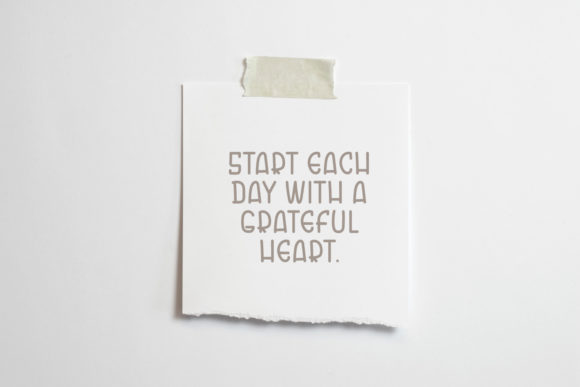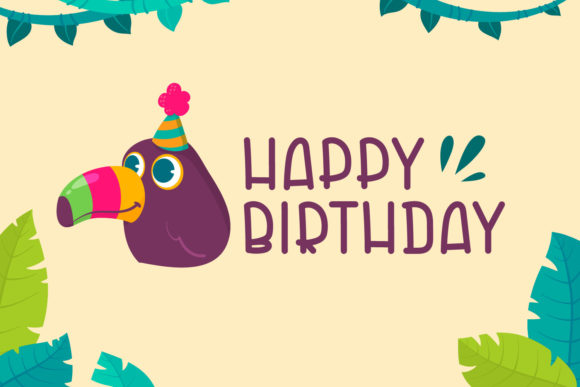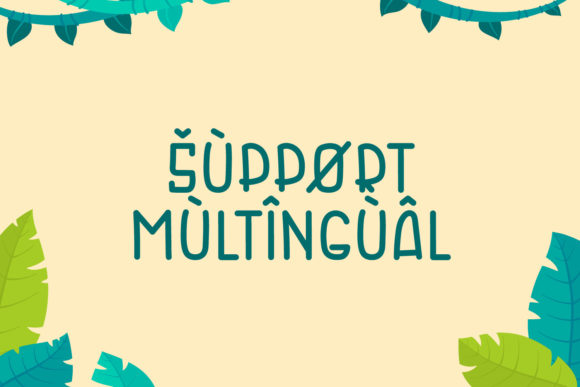
Introduction to Animal Squad Font
Animal Squad is a cute and friendly display font.
Key Features of Animal Squad Font
Why Choose Animal Squad Font?
Animal Squad Font offers exceptional quality and versatility, making it a valuable addition to your design toolkit. Whether you’re creating for personal projects or commercial use, Animal Squad Font delivers professional results.